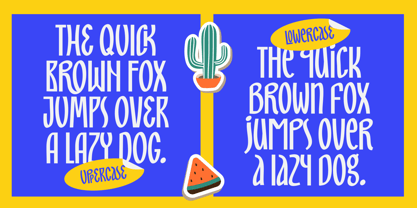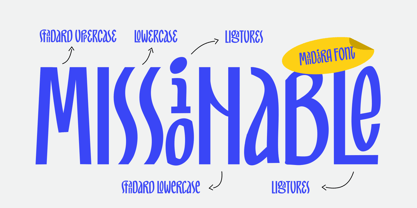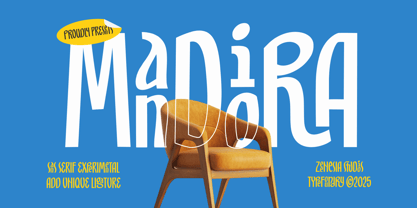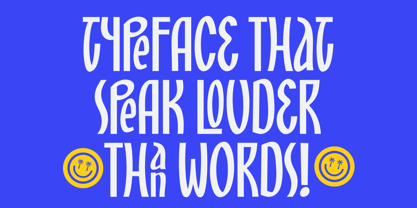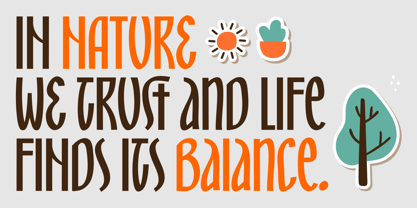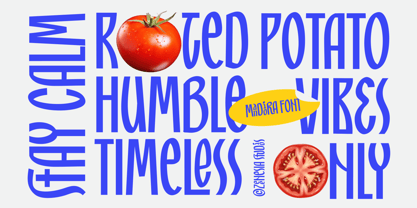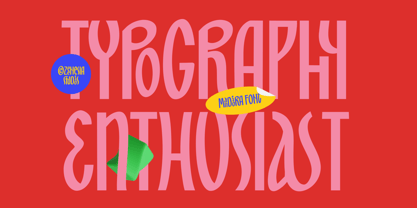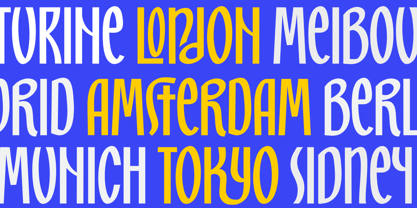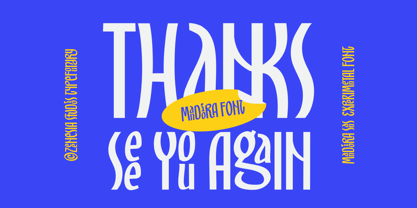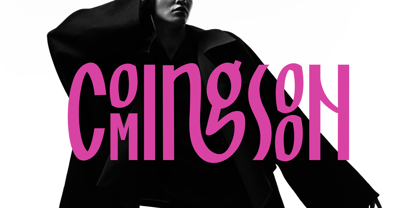
Mandiora
by Zeenesia Studio
The Mandiora Font Family was designed by Doni Purwoko and published by Zeenesia Studio. Mandiora contains 2 styles and family package options. More about this family
Mandiora — The Experimental Sans Serif Mandiora is a bold and expressive experimental sans serif font that dares to break the rules. Designed with striking proportions and unique ligatures, it blends artistic freedom with modern minimalism — making every word stand out with confidence and charm. Perfect for branding, posters, editorial titles, and creative projects, Mandiora brings a touch of personality and playfulness to your typography. Its tall shapes, dynamic rhythm, and distinctive details make it a true statement piece for designers who love to explore new visual territories. Mandiora — where modern design meets experimental expression.
Designers: Doni Purwoko
Foundry: Zeenesia Studio